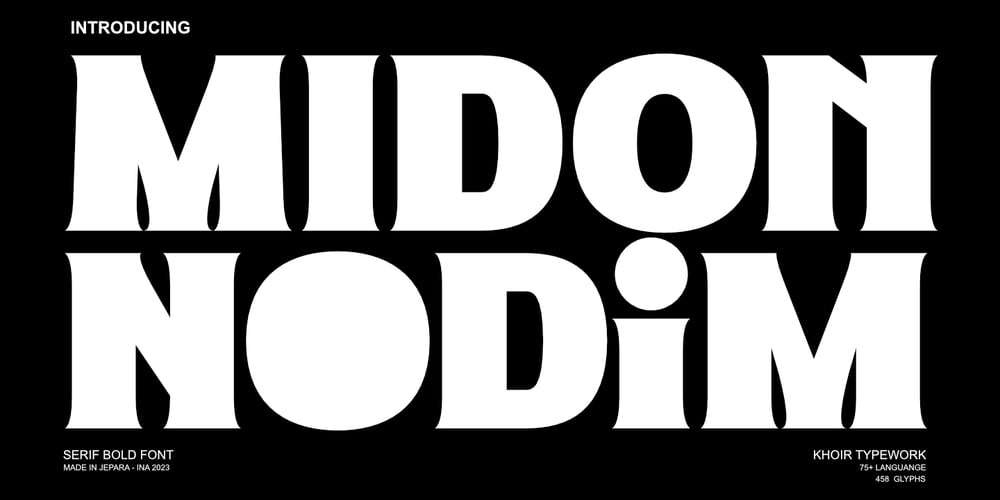
Midon
Midon font
Midon Font Family was designed by Muhammad Romzul Khoir and published by Khoir. Midon contains 1 styles and family package options. Midon font type is a thick serif with an elegant appearance. Having a personality that dares to create feelings and expressions that are firm but gentle so that they can be used as work tools so that the communication conveyed will easily feel beautiful. Midon Uppercase 75+ Language Alternate & Ligature So what are you waiting for? immediately purchase this font, feel free to comment, or send me my PM or email at khoirtypework@gmail.com Thank you for seeing